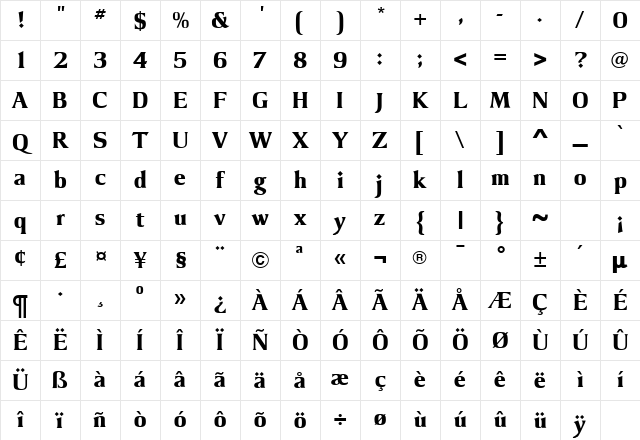
Complete ArgusExtraBold Regular glyph index. Displaying only characters natively supported by ArgusExtraBold Regular font.
ArgusExtraBold is a composed and adaptable typeface that performs quietly and consistently across a wide range of design contexts. Its bold stroke weight gives it real presence on the page.